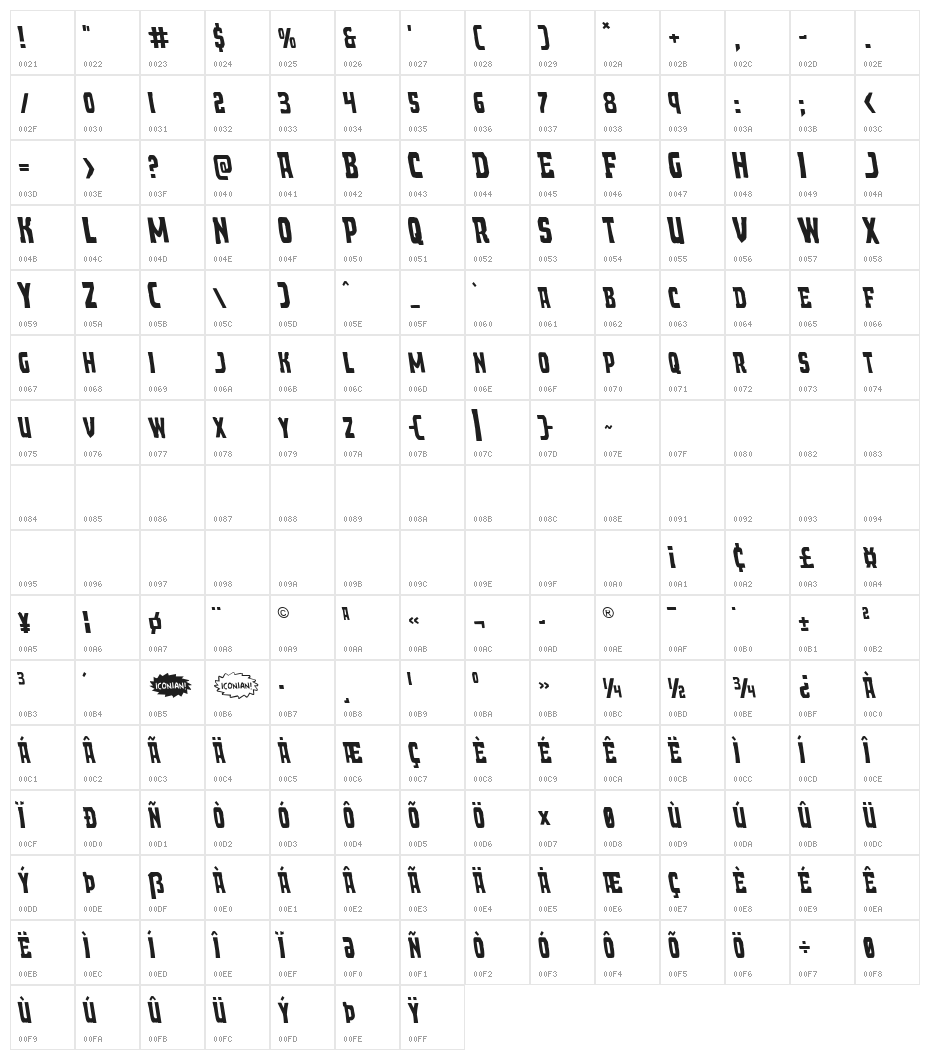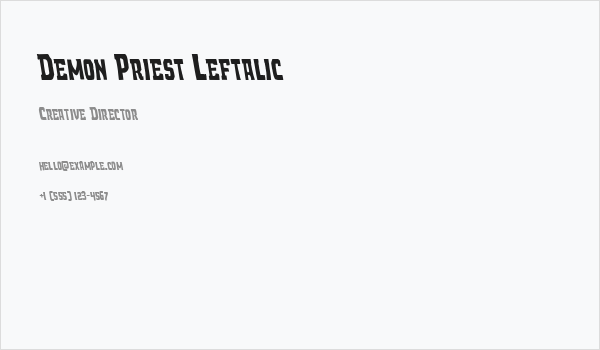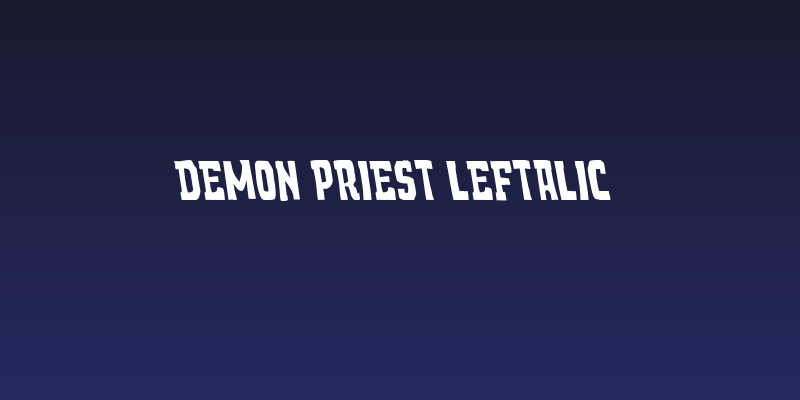
Demon Priest Leftalic Font
Demon Priest Leftalic Description
This font features a bold and dynamic style with a distinct leftward slant, giving it a unique and edgy appearance. The characters are robust and slightly condensed, with sharp angles and a strong presence. The uppercase letters are particularly striking, with a consistent weight that adds to the font's boldness. The numbers and special characters maintain the same stylistic elements, ensuring a cohesive look across all glyphs. This font's design is both modern and slightly aggressive, making it suitable for attention-grabbing applications.